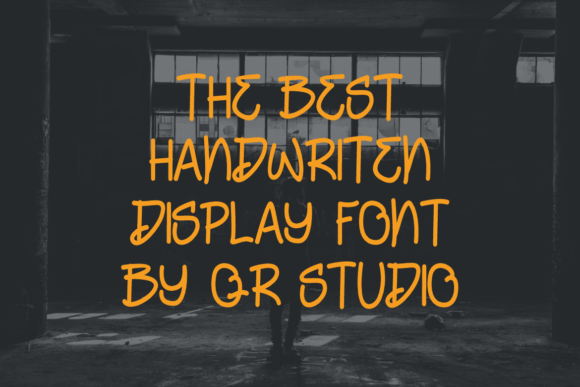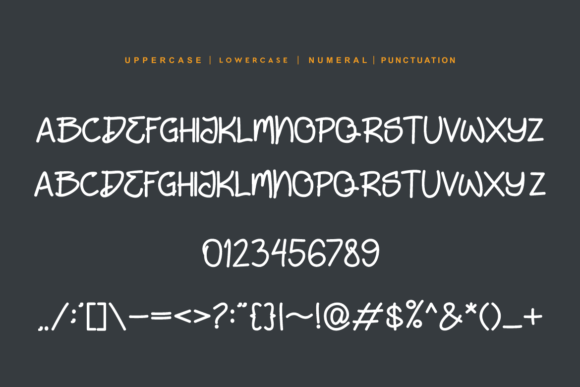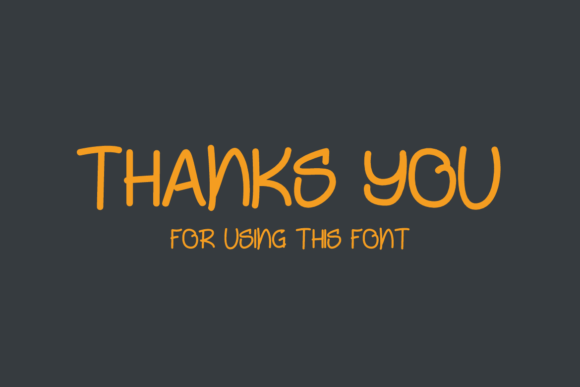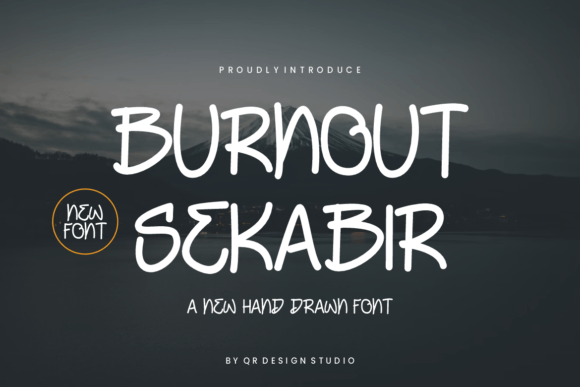
Introducing Burnout Sekabir Font: The Ultimate Handwritten Display Font
Are you tired of using the same old fonts for your branding projects? Look no further! Burnout Sekabir Font is a game-changing handwritten display font that’s perfect for designers and crafters looking to add a personal touch to their work. In this article, we’ll dive into the features and benefits of Burnout Sekabir Font and explore how it can elevate your branding projects.
What is Burnout Sekabir Font?
Burnout Sekabir Font is a unique and authentic handwritten display font that’s designed to make your branding projects stand out. With its natural and effortless look, this font is perfect for creating logos, sport-related designs, and a wide range of other applications. Whether you’re working on a personal project or a client’s, Burnout Sekabir Font is sure to impress.
Key Features of Burnout Sekabir Font
- Handwritten and Authentic: Burnout Sekabir Font has a genuine handwritten feel that’s perfect for creating unique and personalized designs.
- Display Font: This font is specifically designed for display purposes, making it ideal for headlines, titles, and other attention-grabbing elements.
- Versatile: Burnout Sekabir Font can be used in a wide range of contexts, from logos and branding to sports and more.
- Easily Readable: Despite its creative and artistic feel, Burnout Sekabir Font is easy to read and understand, making it perfect for designs that require a clear message.
Benefits of Using Burnout Sekabir Font
So, why should you choose Burnout Sekabir Font for your next project? Here are just a few benefits of using this amazing font:
- Adds Personality to Your Designs: With Burnout Sekabir Font, you can add a personal touch to your designs and make them stand out from the crowd.
- Perfect for Branding Projects: This font is specifically designed for branding projects, making it an excellent choice for logos, business cards, and more.
- Increases Readability: Burnout Sekabir Font is easy to read, even in smaller sizes, making it perfect for designs that require a clear message.
- Unique and Creative: With Burnout Sekabir Font, you can create unique and creative designs that reflect your brand’s personality.
How to Use Burnout Sekabir Font
Using Burnout Sekabir Font is easy! Here are a few tips to get you started:
- Pair it with Other Fonts: Burnout Sekabir Font pairs well with other fonts, making it easy to create visually appealing designs.
- Experiment with Colors: This font looks great in a variety of colors, so don’t be afraid to experiment and find the perfect hue for your design.
- Use it for Headlines and Titles: Burnout Sekabir Font is perfect for headlines and titles, making it an excellent choice for attention-grabbing elements.